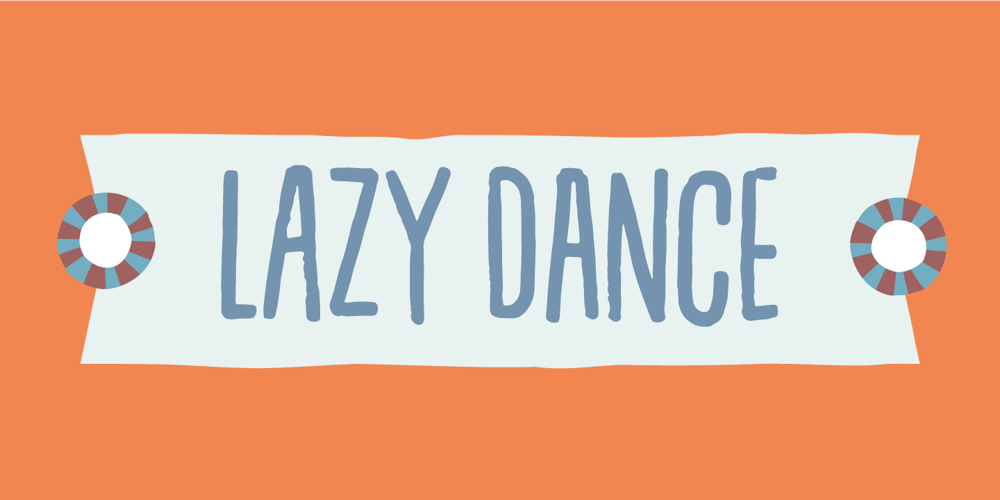
Lazy Dance Font Family was designed by Jakob Fischer and published by PizzaDude.dk. Lazy Dance contains 2 styles and family package options. Check out these Lazy Dance moves – fits perfect to any dancefloor!A tall and thin font made with a brush – it has slightly rugged lines, and a kind of jumpy x-line. All in all it is a font that deserves a design with a handmade look. There are 4 different versions of each letter, and thanks to Contextual Alternates, these automatically cycle as you type. Making your text look really authentic and handmade!There is also multilingual support!